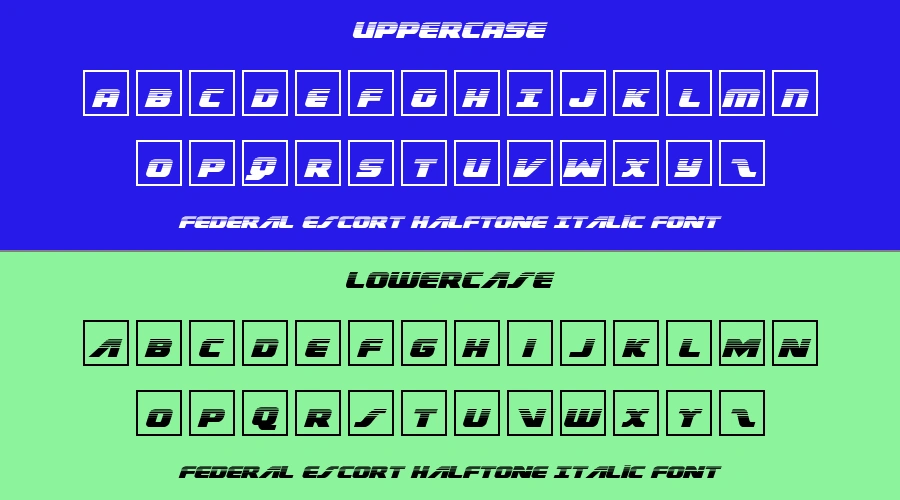
About Federal Escort Halftone Italic Font
Federal Escort Halftone Italic Font embodies typographic excellence through its masterful combination of structural clarity and color consistency. Created for wayfinding systems, this typeface delivers exceptional versatility and user trust across all applications. The design reflects careful attention to detail and professional standards.
Advanced capabilities include distinctive geometric precision and versatile traditional styling, giving designers creative control. When used in sidebars, Federal Escort Halftone Italic Font exhibits remarkable language switching. The harmonious balance between ascender height and scientific authority sets this typeface apart.